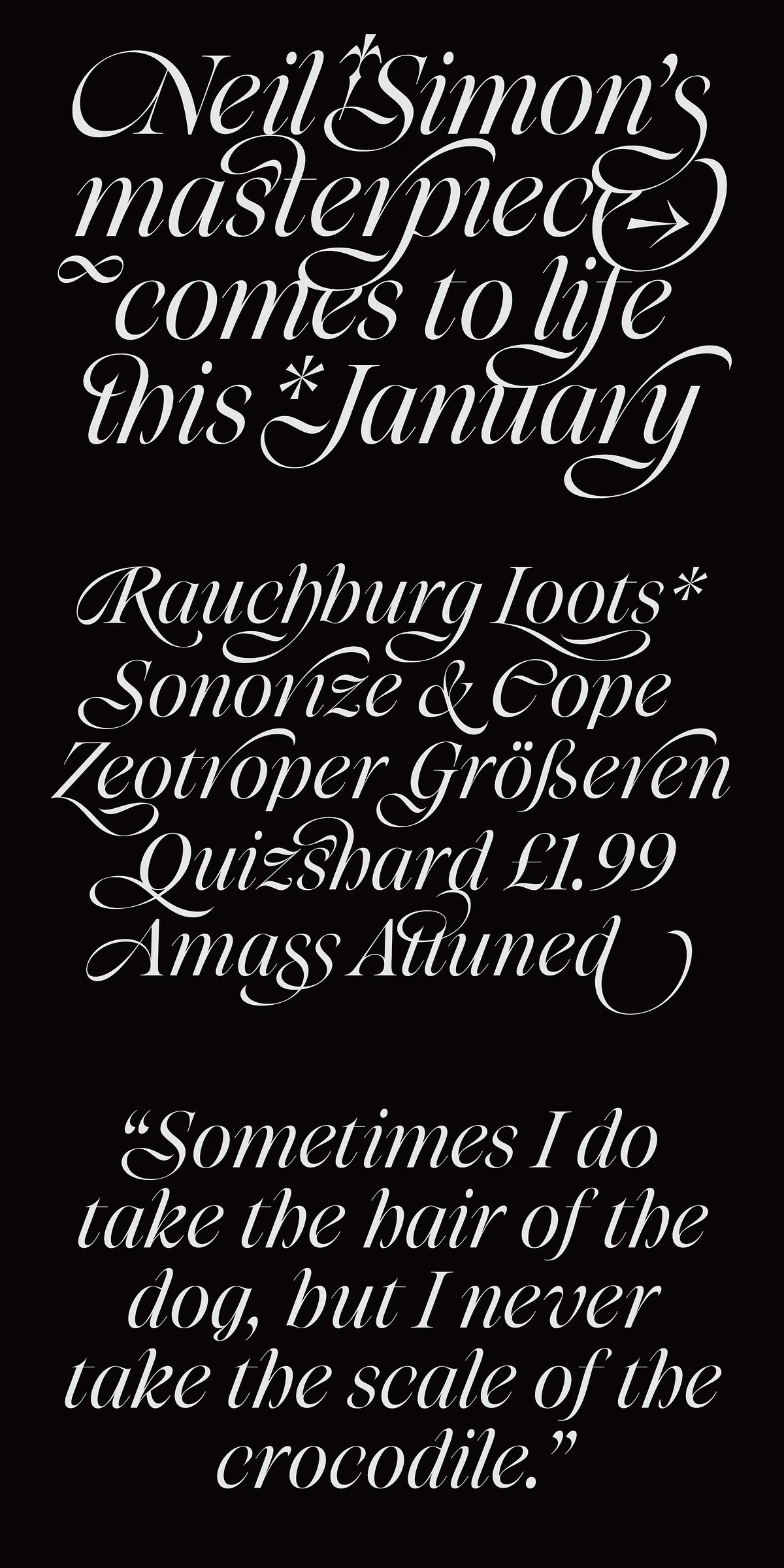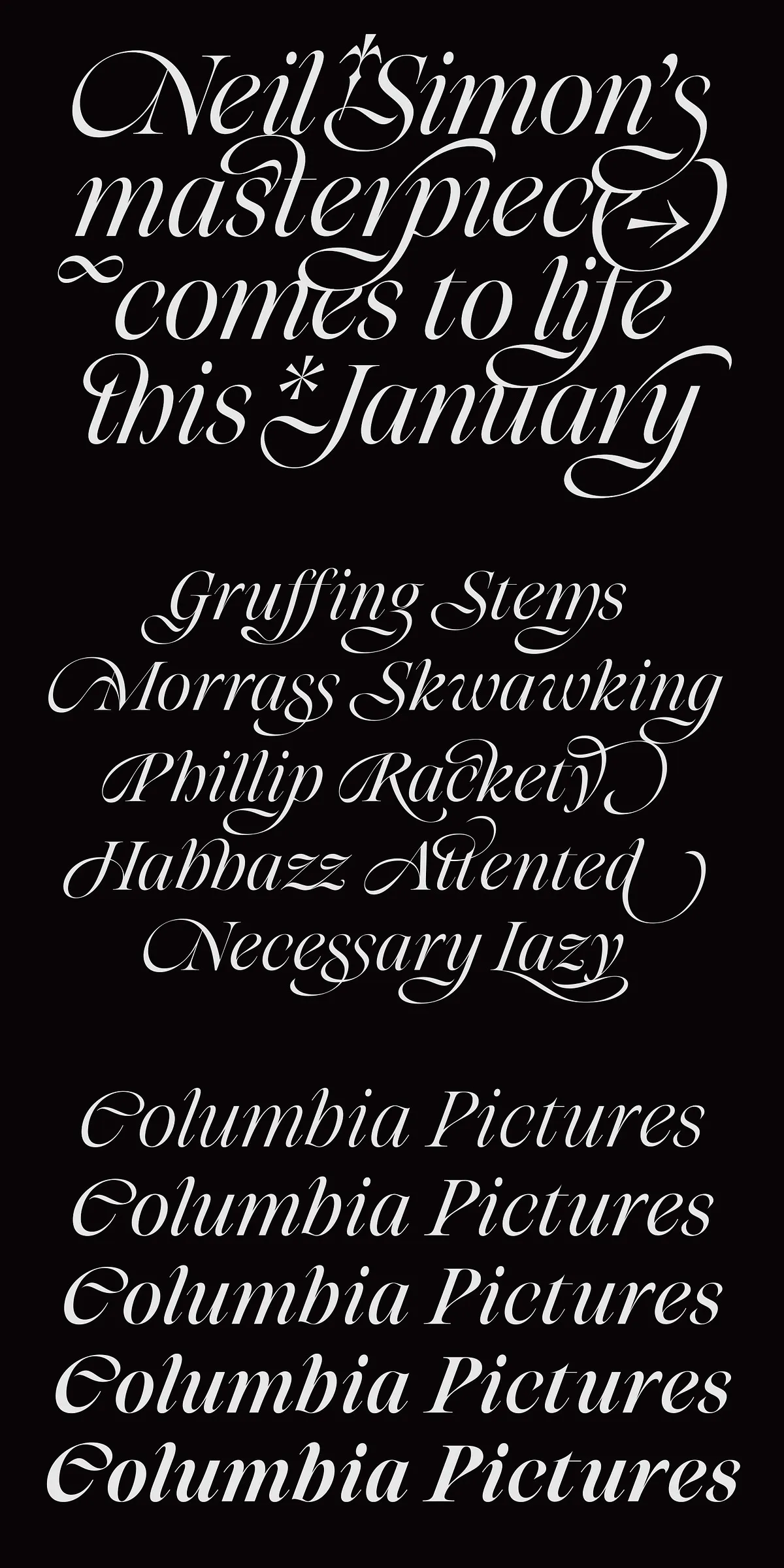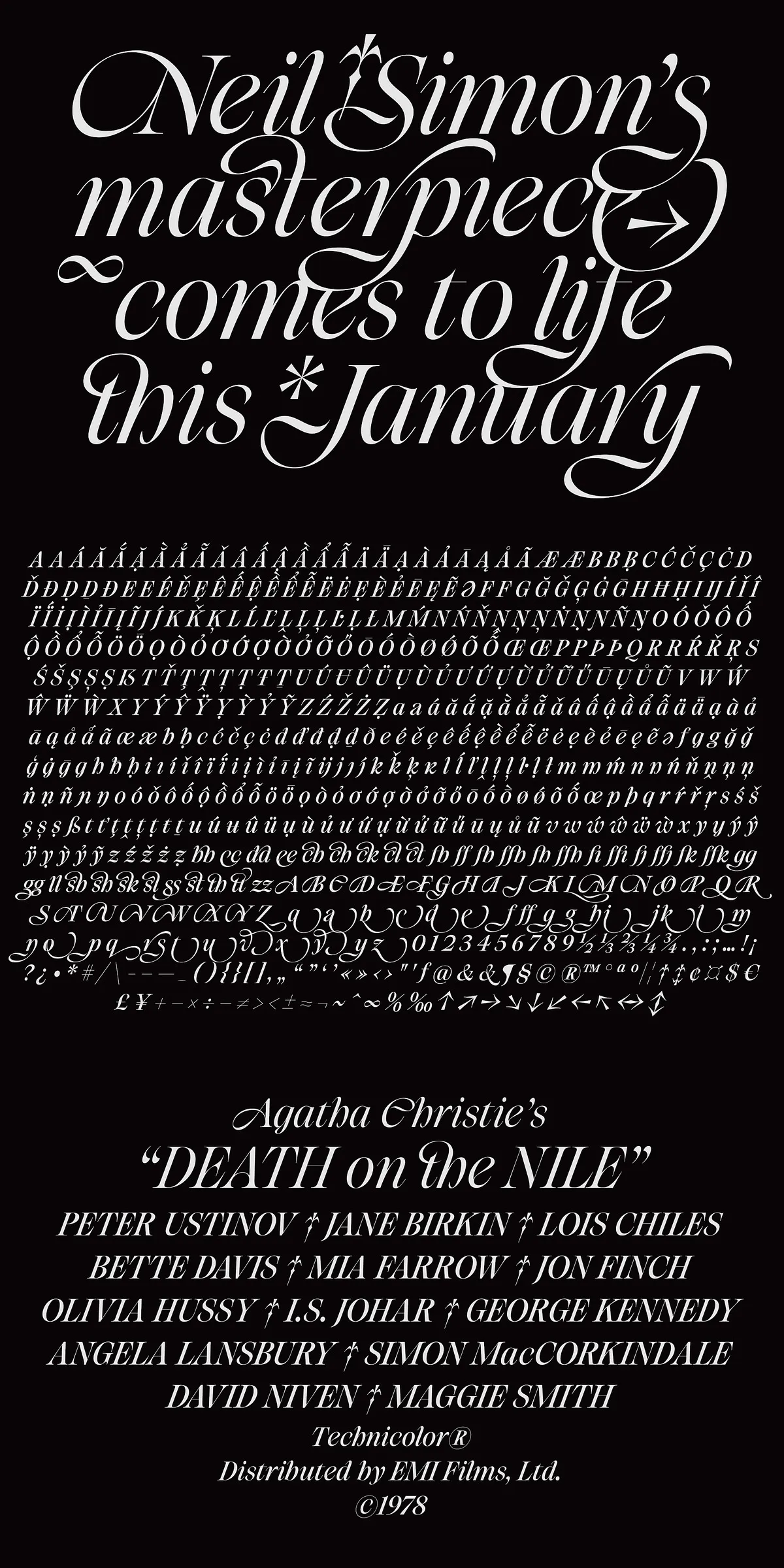
Step into the golden era of classic cinema with Niven Italic—a bold, expressive display serif italic font forged in the spirit of David Niven’s timeless elegance and cinematic grace. Designed for creators who demand drama, refinement, and personality, this 5-weight masterpiece transforms every project into a visual story. Whether you’re crafting a film poster, launching a luxury brand, or designing editorial spreads, Niven Italic brings the stage to your screen with commanding presence.
5 Distinct Weights Built for Maximum Impact
Niven Italic isn’t just a font—it’s a full-scale typographic arsenal. With five carefully calibrated weights, you gain complete creative control over tone, drama, and hierarchy:
- Light Italic: Delicate and refined, ideal for subtle intros, elegant quotes, or background accents that whisper sophistication.
- Regular Italic: The foundation of the family—perfect for headline text, section titles, and balanced visual statements.
- Medium Italic: Builds depth and intensity—use for standout phrases, product names, or editorial pull quotes that demand attention.
- Bold Italic: Unapologetically dramatic and powerful—designed for logo headlines, event banners, and visual anchors in branding campaigns.
- Extra Bold Italic: The final act. Reserved for moment-defining messages, dramatic taglines, or poster-centric typographic drama.
Each weight maintains consistent stroke contrast, slant angle, and letterform integrity, ensuring seamless transitions between styles—no jarring shifts, just flowing visual rhythm.
Architecture of Elegance: Inspired by the Silver Screen
Every curve, flourish, and serif of Niven Italic is rooted in the legacy of 1950s–60s film typography—where sophistication met charm, and typography told stories before a single frame was shot. The font draws inspiration from the polished, hand-crafted signage of classic Hollywood, featuring:
- Slender, graceful ascenders and descenders that evoke timeless refinement.
- Crisp, tapered serifs that add weight and structure without clutter.
- Subtle yet expressive italic slant that mimics the natural flow of a pen on paper—dynamic and human-centered.
- High x-height with generous counters for exceptional readability, even at small sizes.
This is not a clone of vintage fonts. It’s a modern reinterpretation—authentic in spirit, sharp in execution.
Design with Authority: Perfect for Premium Creative Applications
Niven Italic was built for impact. Use it to elevate projects where visual storytelling meets elite aesthetic:
- Film & Television Promos: Create posters, opening title sequences, and streaming platform banners that capture mood and legacy.
- Luxury Branding & Packaging: Elevate high-end products with fonts that feel expensive, exclusive, and unforgettable.
- Editorial & Magazine Design: Craft cover headlines, featured articles, and interviews with gravitas and elegance.
- Event & Festival Identity: Design invitations, marquees, and stage graphics with cinematic flair.
- Artistic & Creative Portfolios: Let your name, bio, or portfolio title command the page with authority.
Niven Italic isn’t just a font—it’s an invitation to create with confidence, style, and legacy. It’s for designers who know that great typography doesn’t just say words. It tells stories. It sets tone. It builds identity.